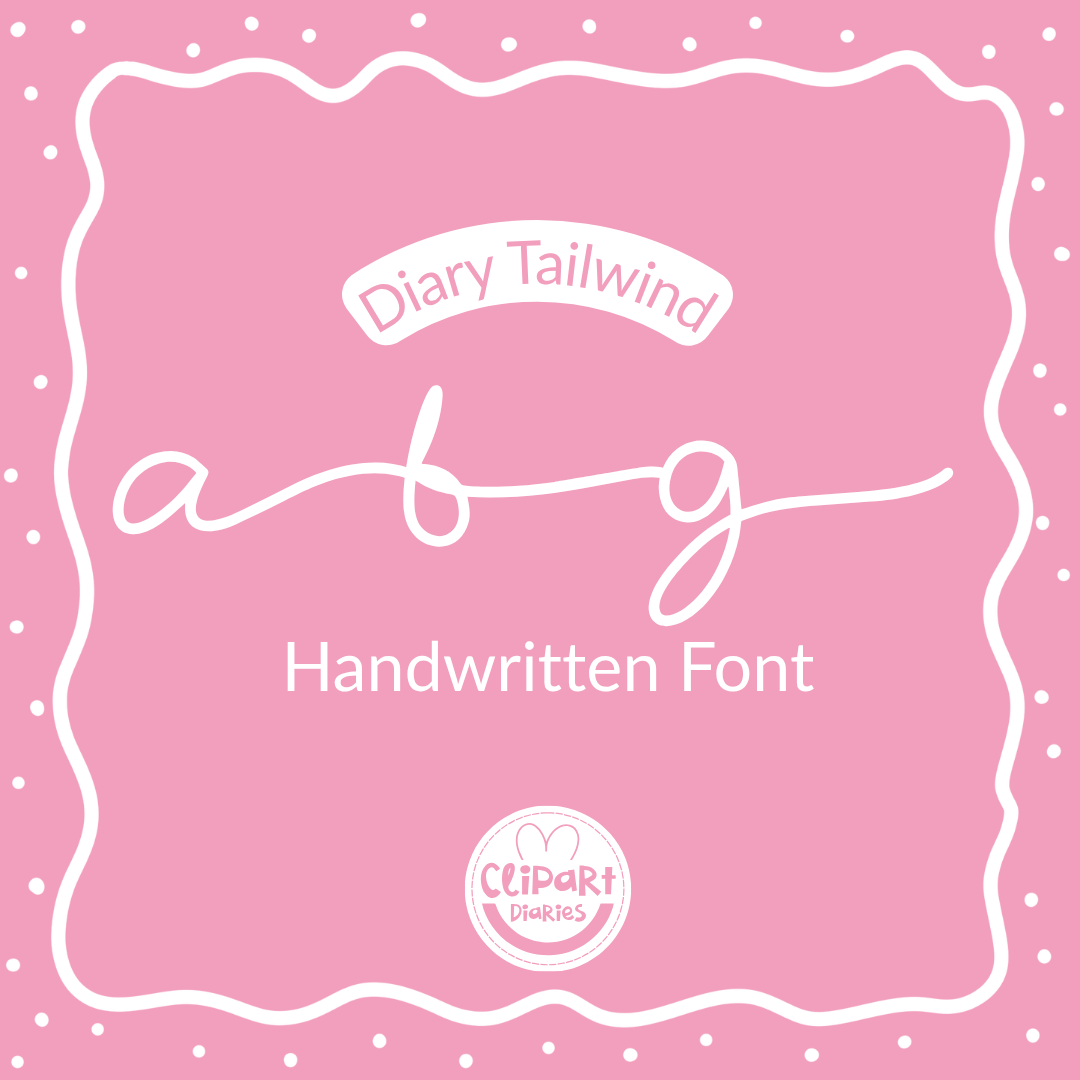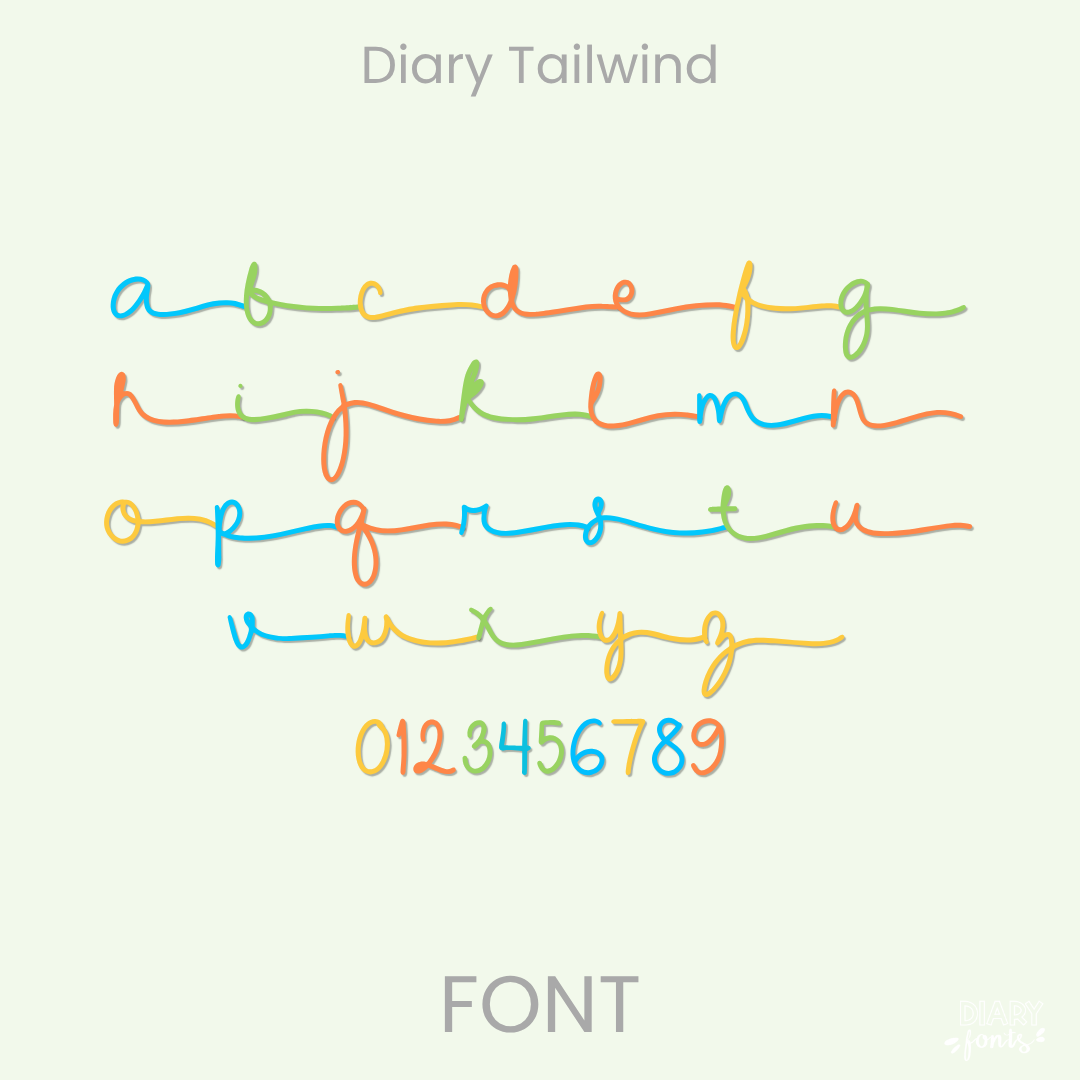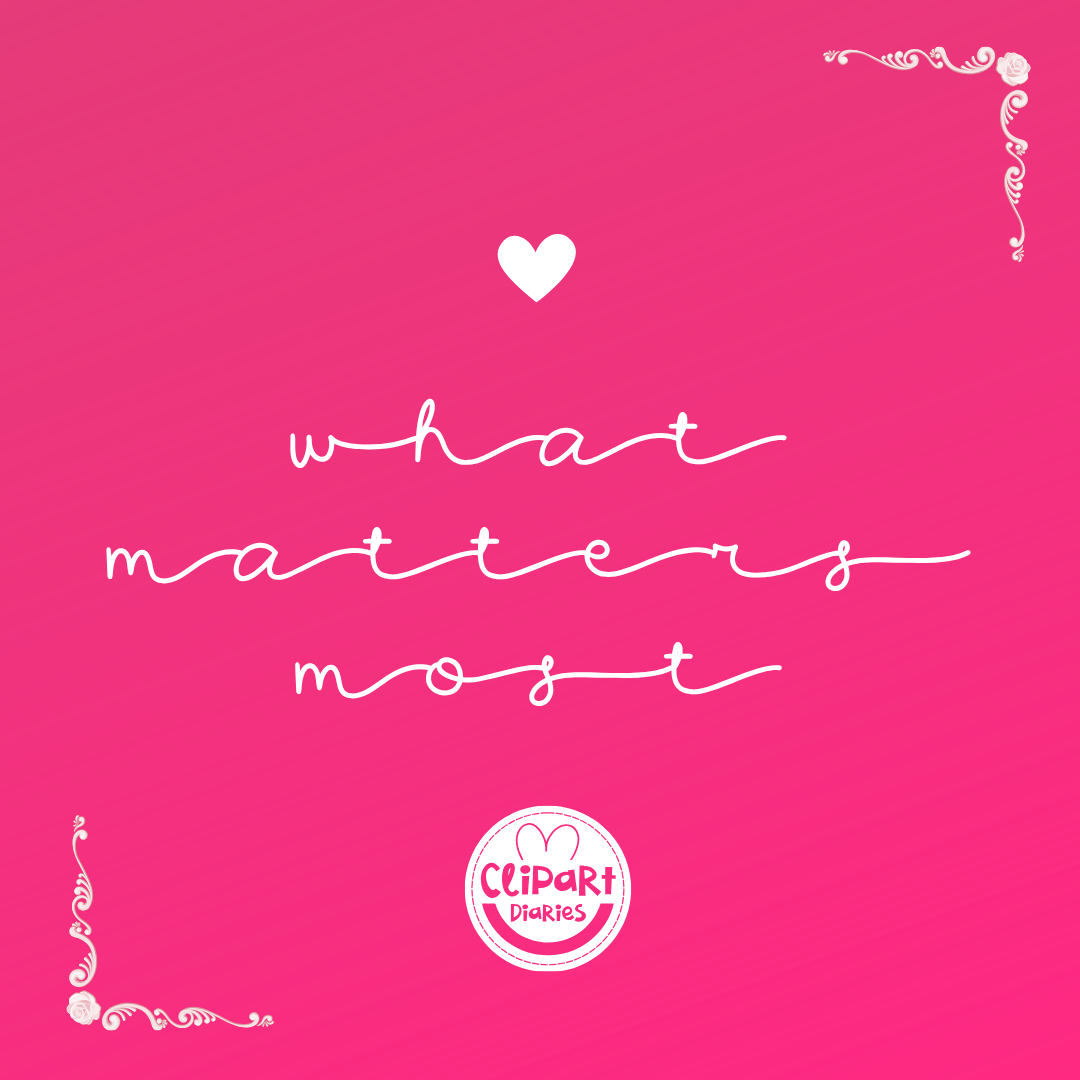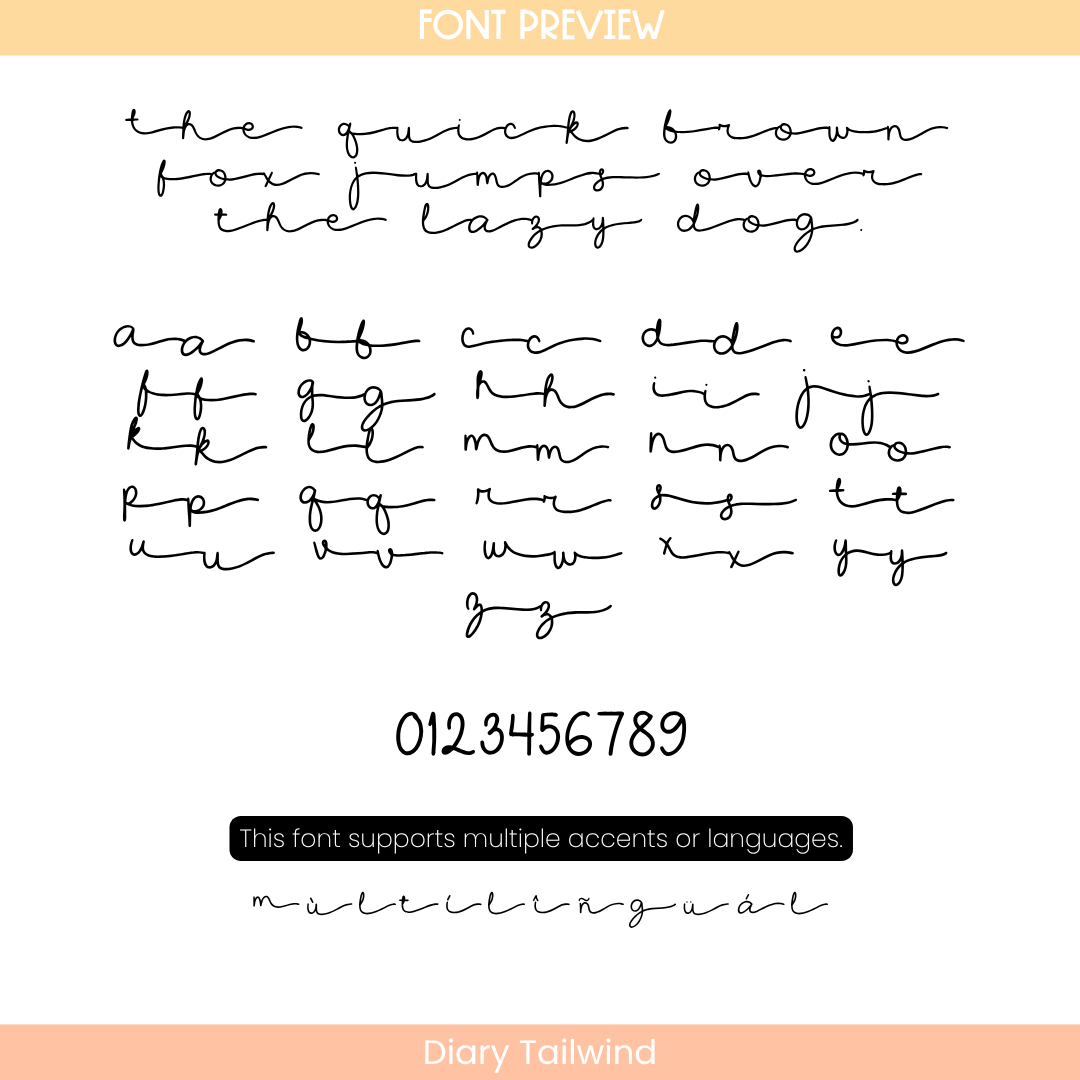
If you’ve been looking for a decorative script font that stands out from the crowd with an effortless, artsy vibe, Diary Tailwind is about to become your new absolute favorite design tool. This unique cursive font features a beautifully exaggerated, ultra-extended baseline connection that loops your letters together in one continuous, sweeping line. With its delicate monoline structure and relaxed vertical posture, it creates a gorgeous horizontal “tailwind” effect that anchors your text gracefully without adding any visual clutter—making it a uniquely stylized typography choice for your layouts.
It is the absolute perfect choice for adding elegant accent headings to morning slides, creating beautiful motivational quotes for your classroom walls, designing chic custom resource headers, or styling digital planner dividers. Inside the download, you’ll get a full set of fluid cursive lowercase letters designed to trail beautifully across the page, clean matching numbers, and multi-accent markings for complete multilingual support. It drops right into Canva, MS Office, or Adobe on your desktop, and pairs beautifully with Procreate and GoodNotes on your iPad. Whether you’re prepping daily activities for your own sweet classroom or designing a fresh new commercial-use product line for your online teacher shop, this decorative display font adds a touch of confident, warm style to your toolkit.